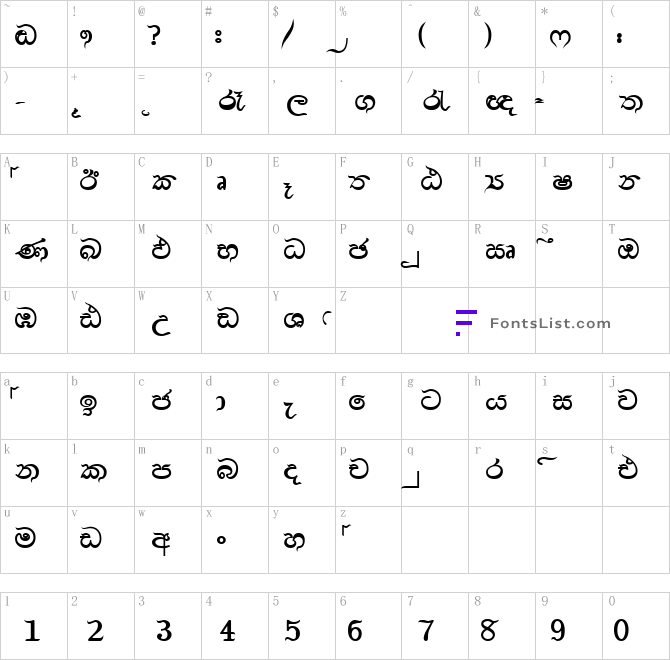
- Font Name:AMS_Ajith
AMS_Ajith.ttf is a very beautiful artistic font, AMS_Ajith.ttf is widely used in the design and printing of various books and pictures,AMS_Ajith.ttf has a strong visual impact,AMS_Ajith.ttf is a commonly used font in newspapers, magazines and books, and is used in posters, e-commerce Poster design, store design, logo design, font design and other fields.AMS_Ajith.